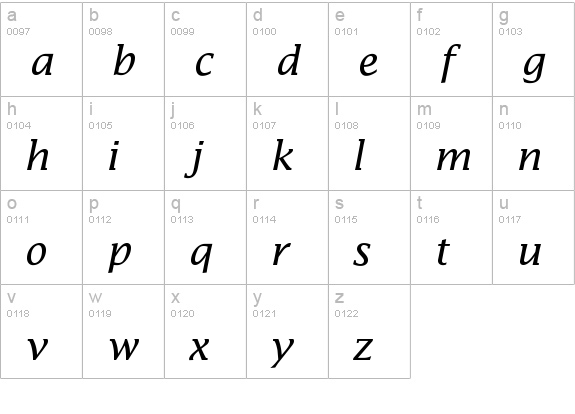
Lucida Math Italic is a distinctive, italic variant in the Lucida typeface family \xE2\x80\x94 well suited to design and typography projects.
Lucida Math Italic is a beautifully designed font that exudes elegance and sophistication. Its sleek and slanted appearance adds a touch of modernity to any text or design. The italicized style of Lucida Math enhances readability and creates a sense of fluidity in written content. Whether used for mathematical equations, technical documents, or creative projects, this font stands out for its clarity and professionalism. And the best part is, Lucida Math Italic is available for free download at FontsMarket.com. This means you can easily access and use this high-quality font in your projects without any cost. Don't miss out on the opportunity to enhance your designs with the stylish and versatile Lucida Math Italic font. Download it today and elevate your visual creations to the next level.